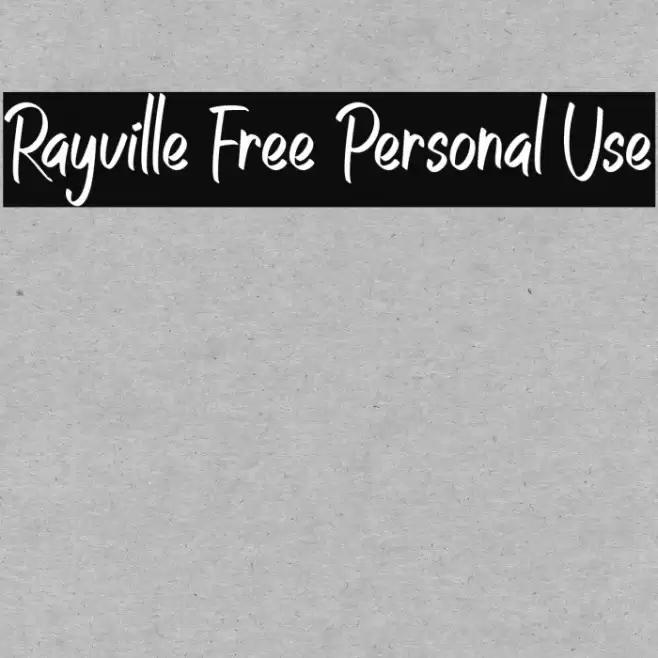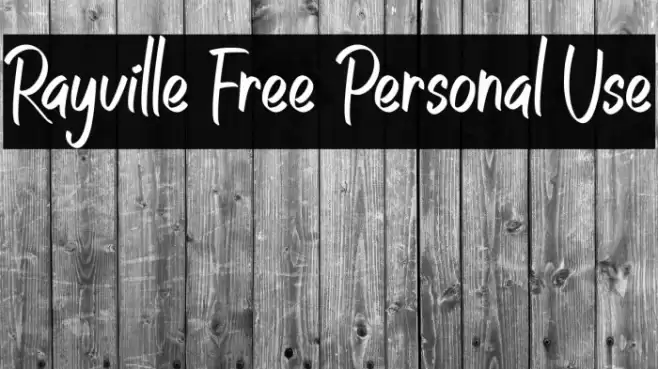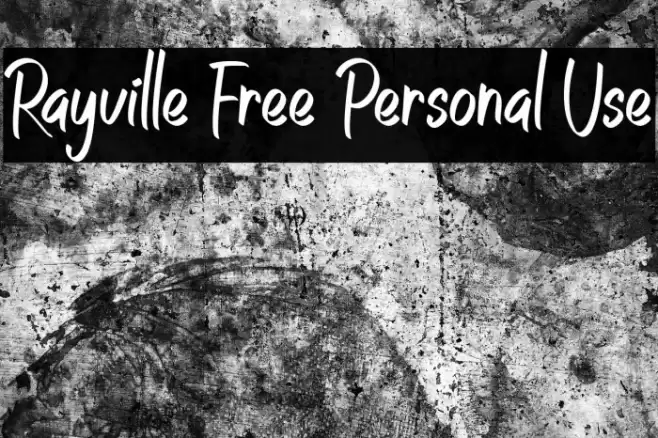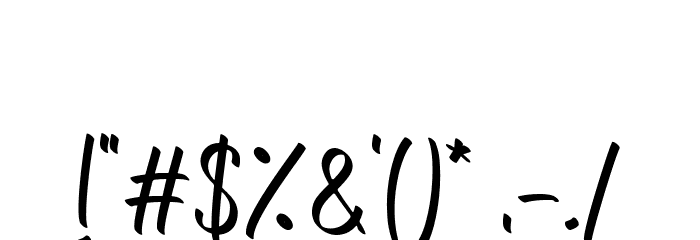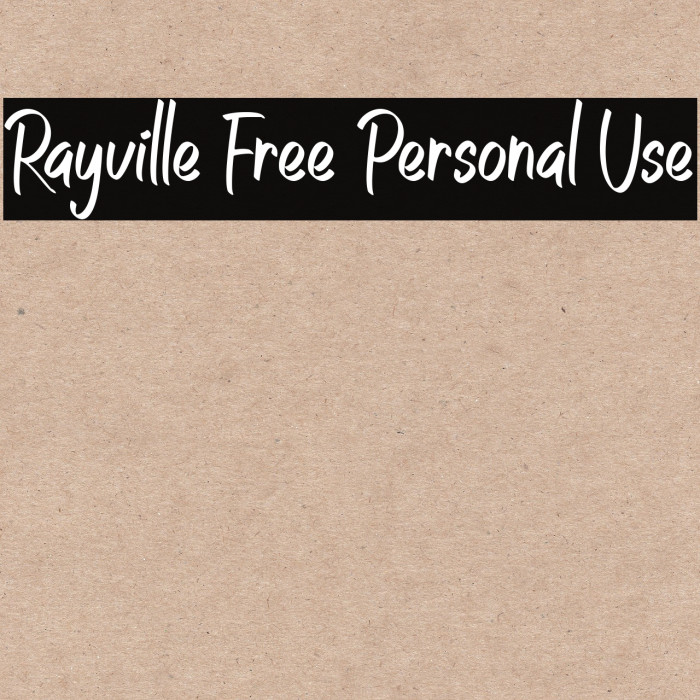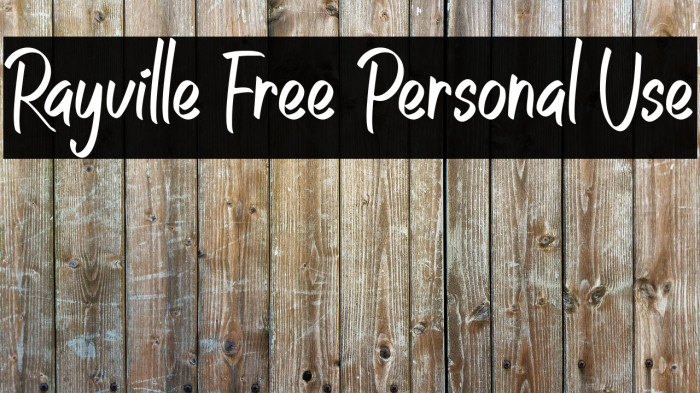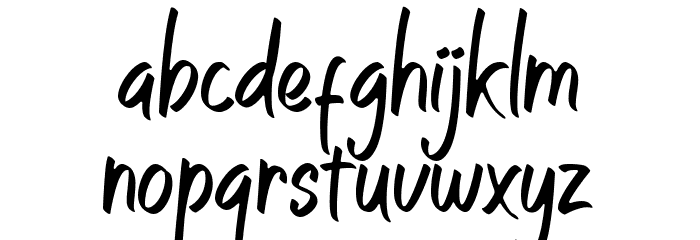
Rayville Free Personal Use Font
Rayville Free Personal Use Description
This font features a playful and dynamic handwritten style, characterized by its fluid and slightly irregular strokes. The uppercase letters are tall and slightly narrow, giving a sense of elegance and movement. The lowercase letters maintain a consistent flow, with some letters like 'g' and 'j' having distinctive loops that add to the font's charm. The numbers and special characters are crafted to match the overall aesthetic, ensuring a cohesive look across all uses. This font's informal yet stylish appearance makes it suitable for a variety of creative projects.
A playful, dynamic handwritten font with fluid strokes and elegant movement from Uncategorized fonts.
- Proposed Projects: Ideal for greeting cards, invitations, branding, and social media graphics.
- Use Case: Logos, Headlines, Invitations